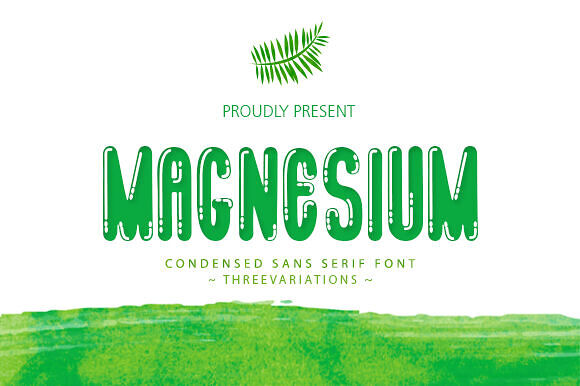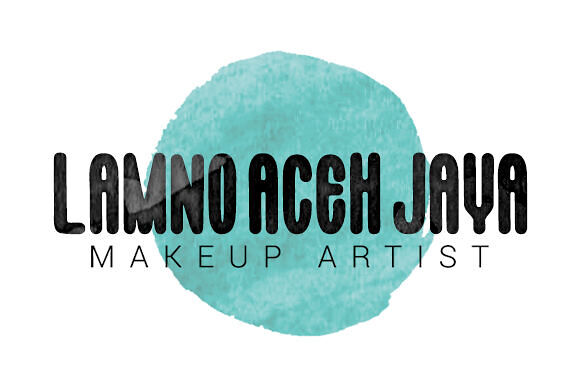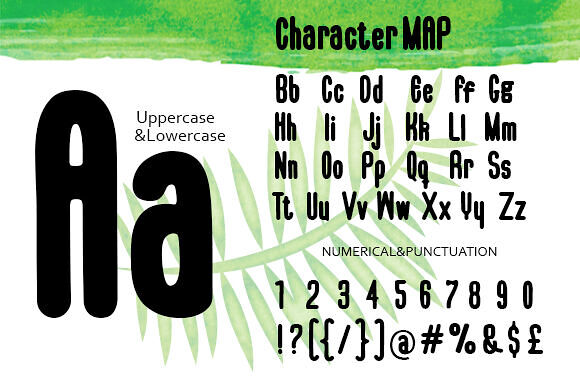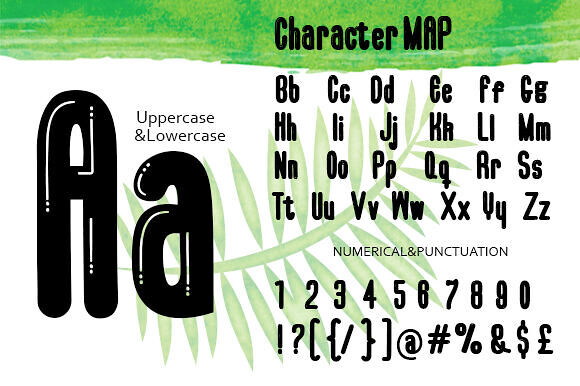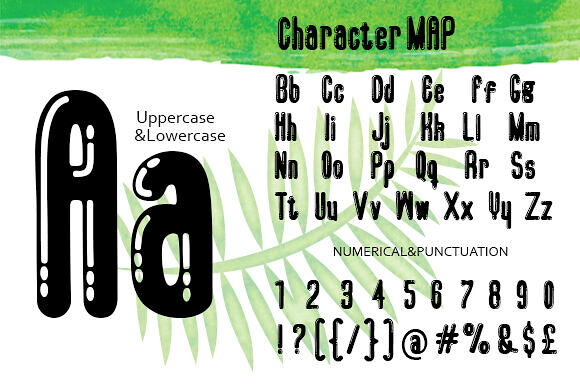
Magnesium Font
Elevate your craft projects with a timeless feel using this versatile Magnesium font, available in three styles. Its sporty vibe makes it ideal for adding a dynamic touch to any design, perfect for creating a collegiate-inspired look.